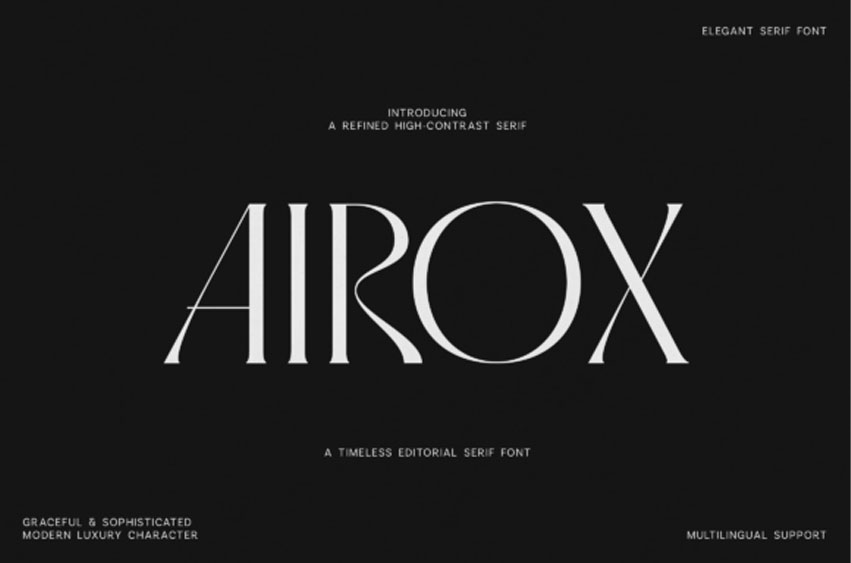
Airox Font is an elegant serif font created for sophisticated branding, luxury editorials and striking display typography. Its graceful yet expressive character makes it ideal for luxury logos, fashion branding, magazine layouts, beauty and perfume packaging, boutique hotels, resort identities, wedding stationery, restaurant menus, posters, invitations, social media graphics and stylish website headlines.
Whether used for a minimal wordmark or an oversized editorial title, Airox adds a polished, exclusive and memorable presence to every design.